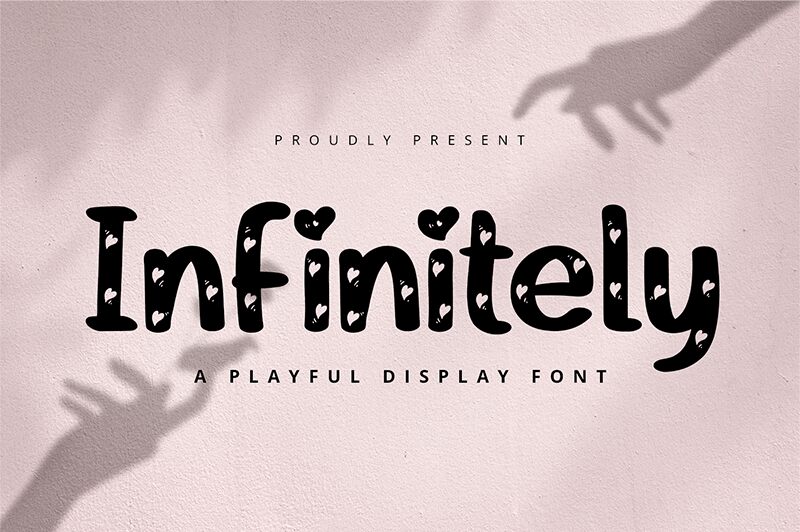
Infinitely
Infinitely, crafted by Alpaprana Studio, is a semi-bold font that captures the essence of romance with its valentine and decorative style. Its curvaceous letters are adorned with subtle heart motifs, weaving passion into every character. The font's playful yet elegant aesthetic makes it a delightful choice for a variety of creative endeavors.
From wedding invitations to branding projects that require a touch of love, Infinitely adds warmth and charm. Its distinctive design ensures that any message stands out with an air of whimsy and sophistication. Whether employed in print or digital media, Infinitely promises to infuse your work with an endlessly enchanting appeal.